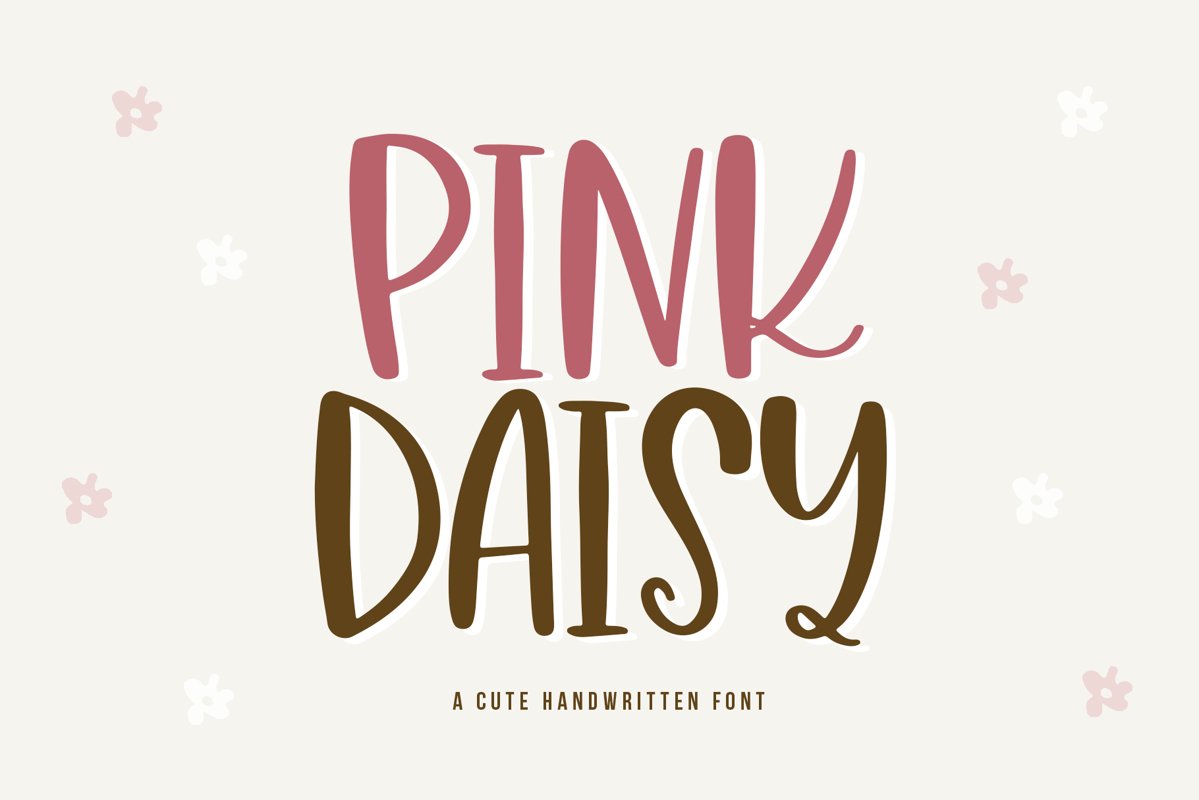
Pink Daisy - A Quirky & Chunky Handwritten Font
Pink Daisy is a cute & quirky handwritten font!
This is an all caps font - with ligatures for oo & ss
This font is perfect for quotes, shirt designs, websites, branding, children's designs, svg designs, blogs, logos, invitations and more!
Most accent characters included.